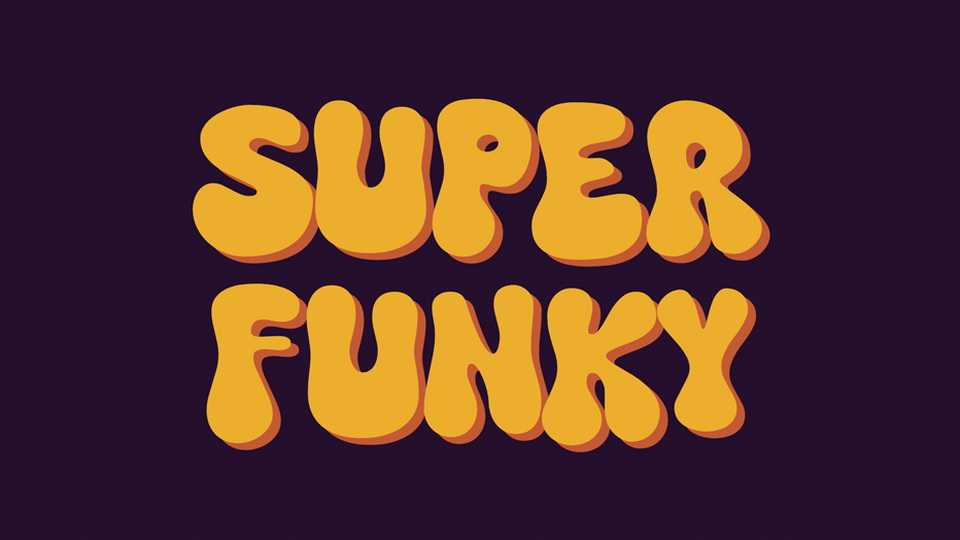
Download Super Funky font, a groovy display typeface with a retro vibe. Whether it’s posters, titles, prints, Super Funky font is the perfect choice to create eye-catching and memorable designs.